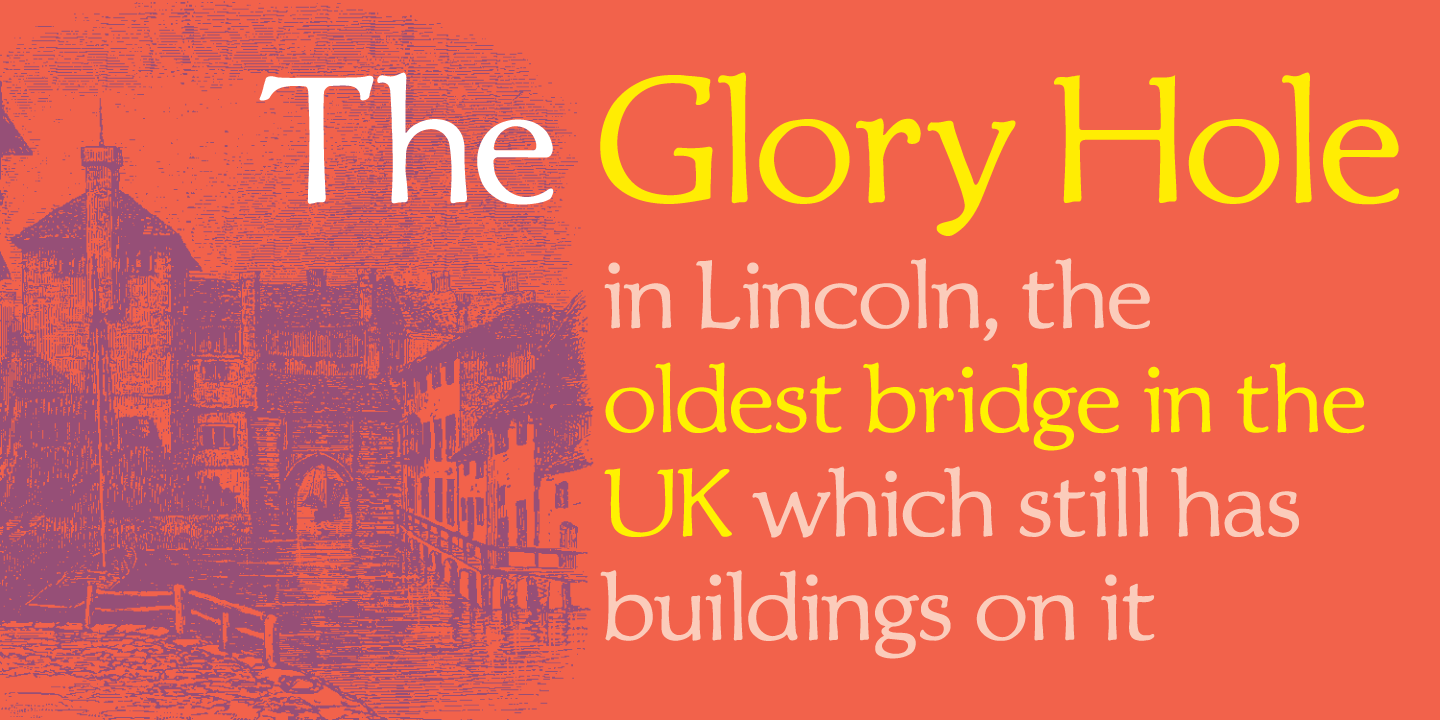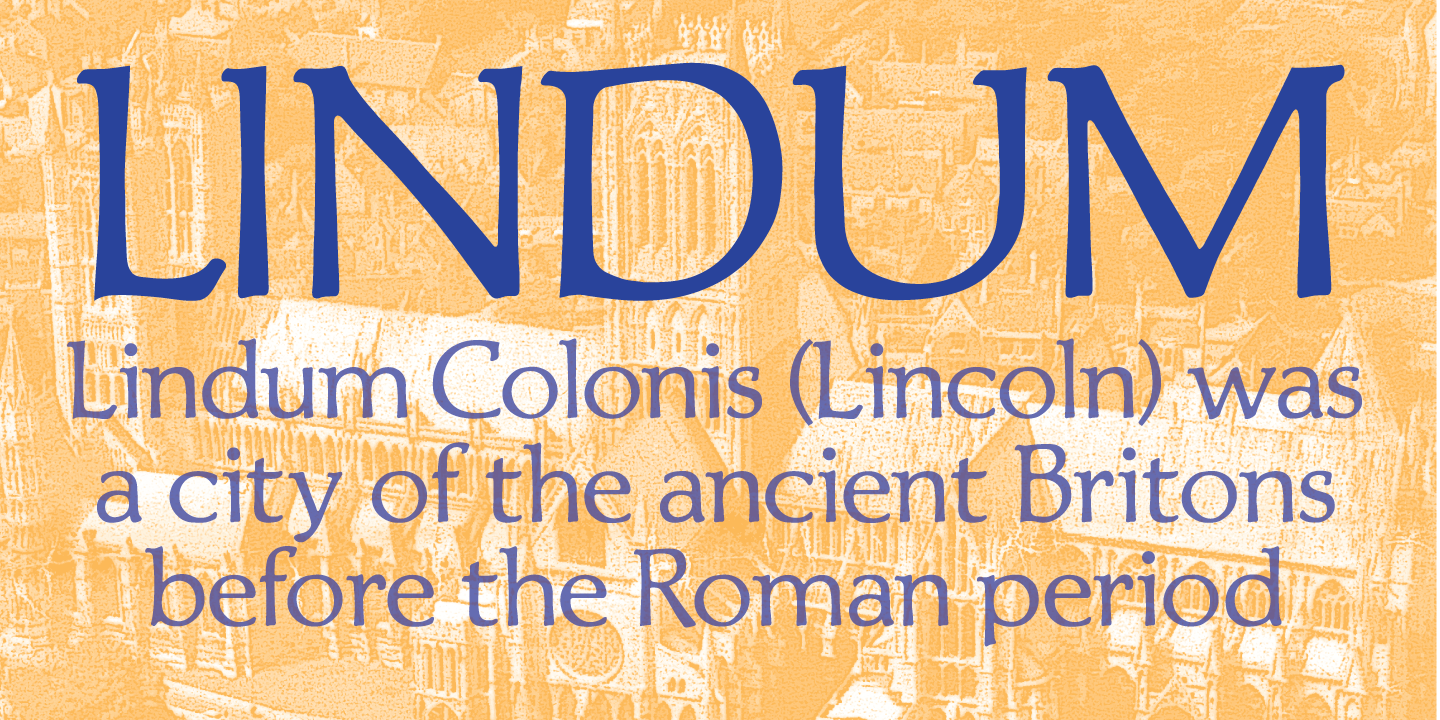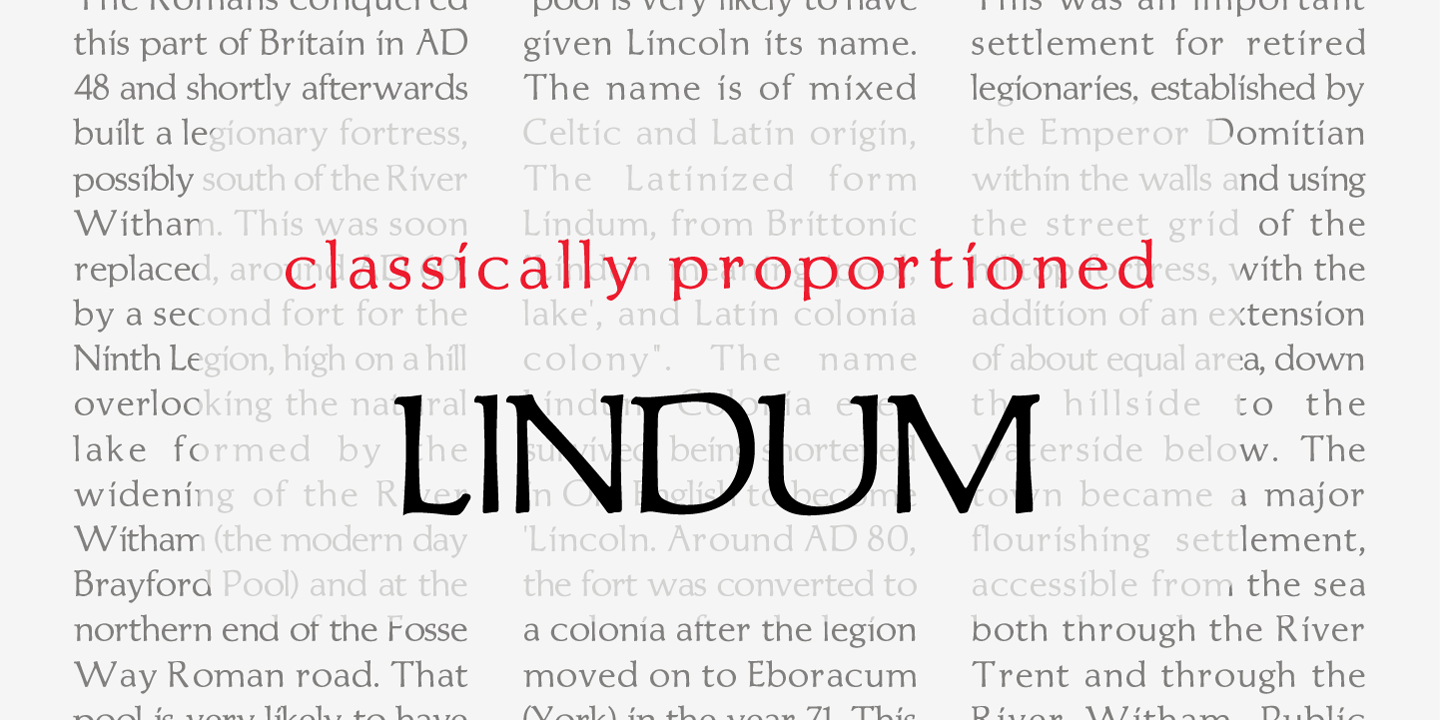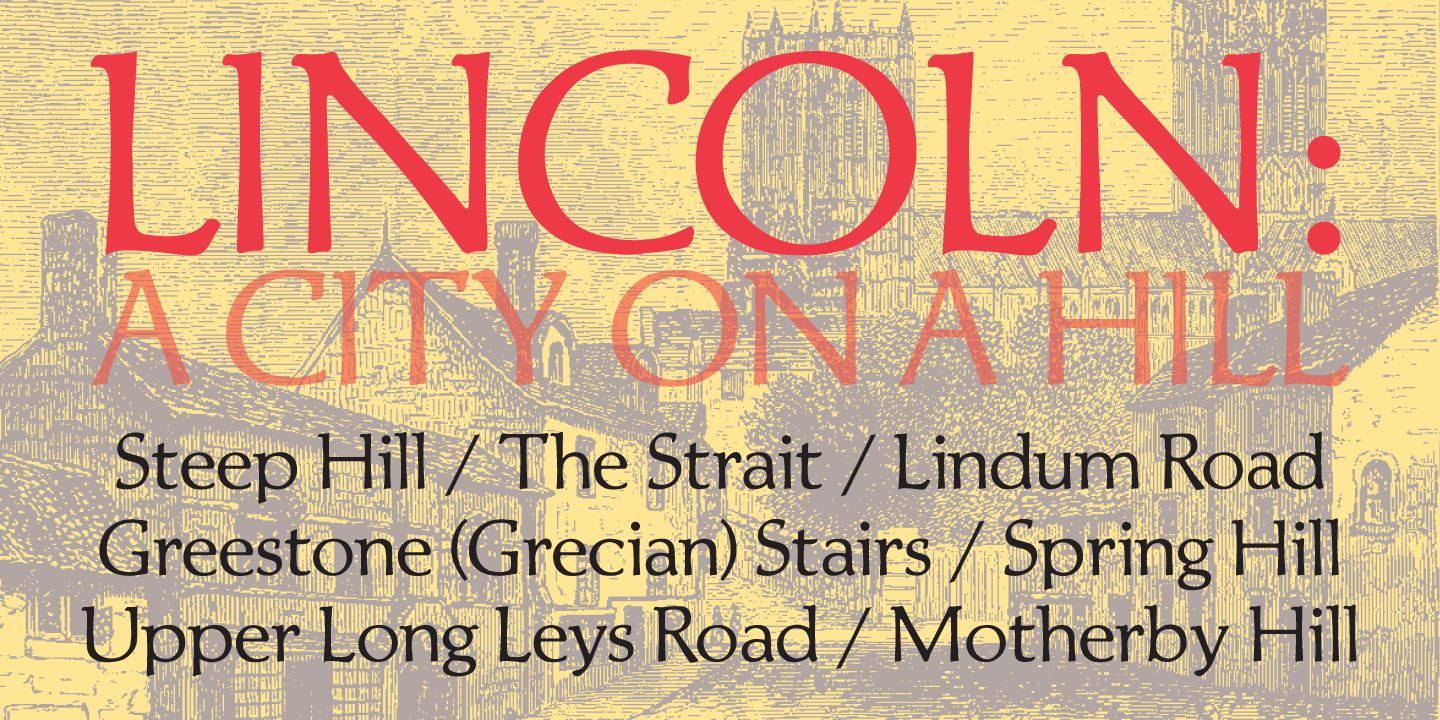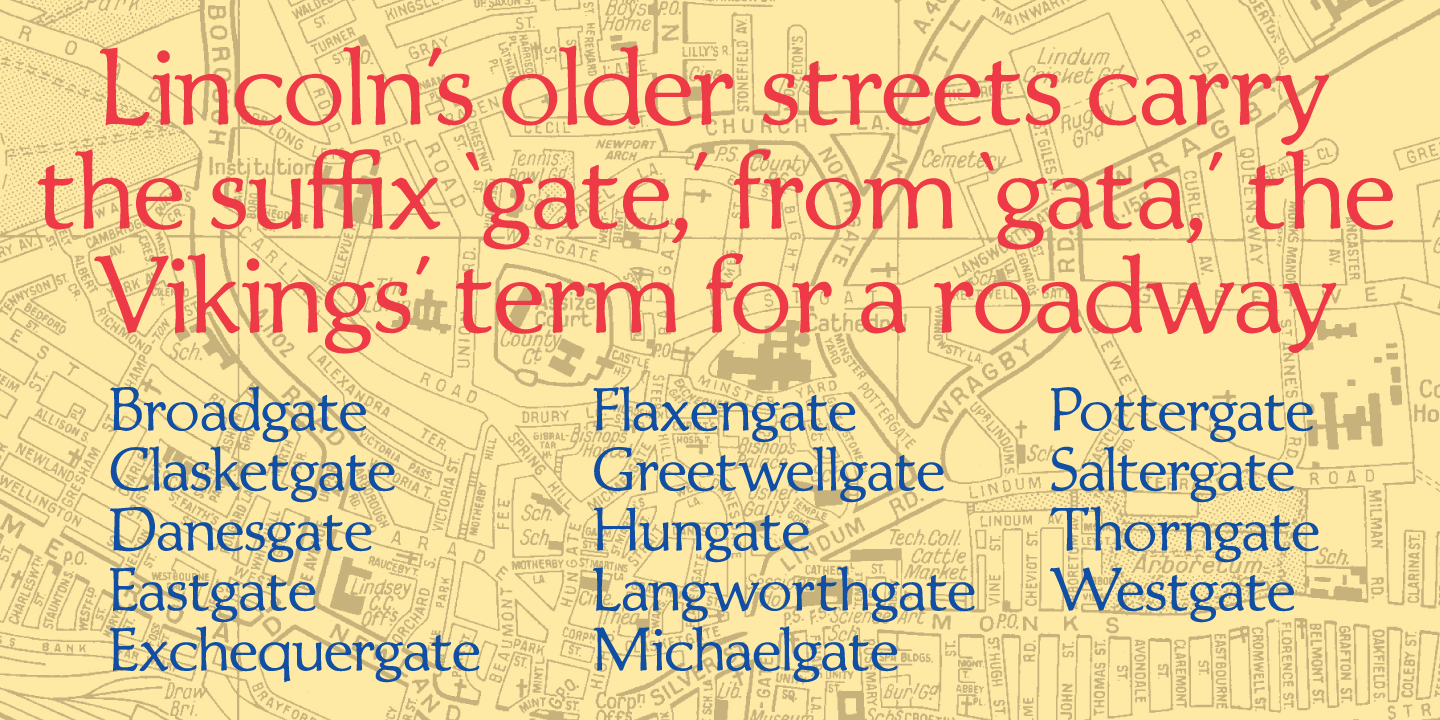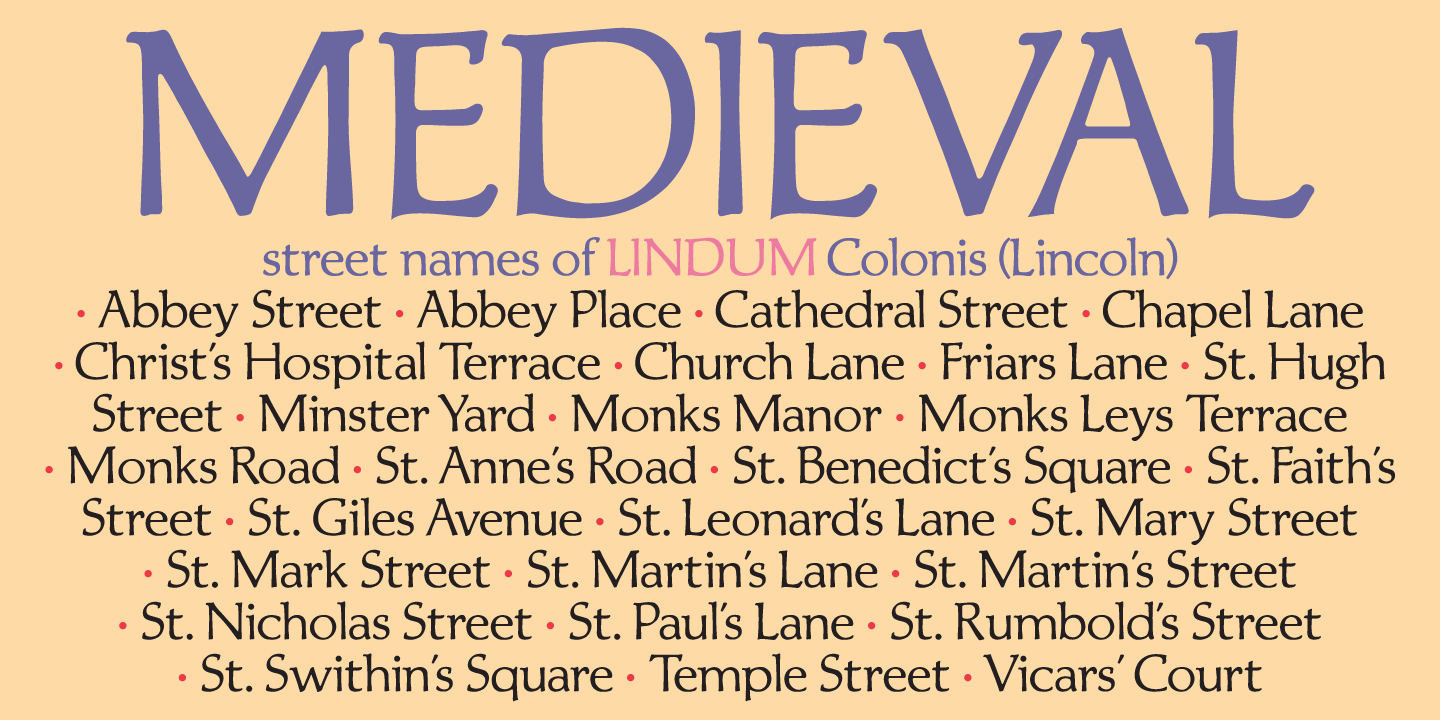
Lindum is a classically-proportioned Roman font that is almost a sans serif, the serifs appearing only on the upper part of the letterform. The lowercase features a large x-height and very short descenders.